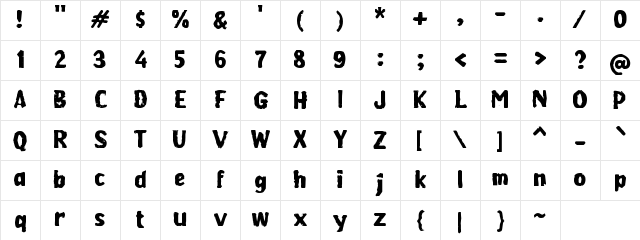
j Jambu Kristal Regular
Designer: Wahyu Eka Prasetya
Design Context for j Jambu Kristal
j Jambu Kristal is a composed and adaptable typeface that performs quietly and consistently across a wide range of design contexts.